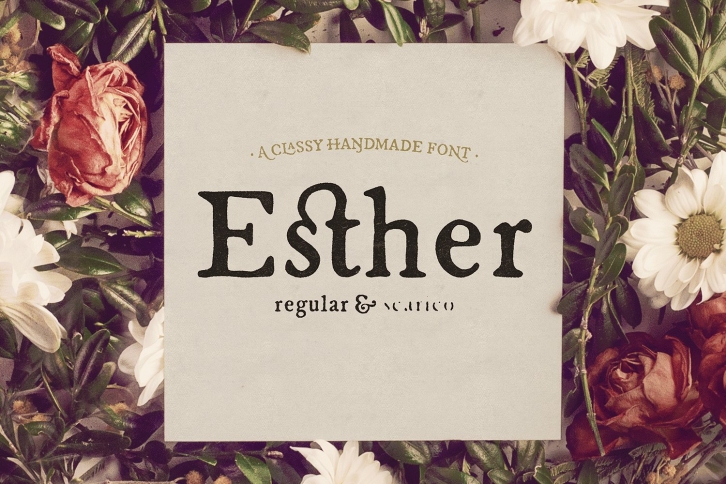
Esther is a classy handmade typeface that has been designed by Valerio Dell’Edera, who also has developed a Uppercase-Liga product line (Zenzero Grotesk And Zenzero Grotesk Sans). This font is the ultimate version of this serie, with serifs. It is not constructed out of modules: each character is drawn by hand and optimized for the best legibility. Esther is ideal for cookbooks, menus, liquor bottle labels, food packaging, wedding invitations, greeting cards, tea boxes, food blogs, small shops, cupcake bakeries and so on.
Esther Regular (Esther-Regular.otf) is a set of upper & lowercase serif characters which includes a large range of punctuation glyphs, numerals, and multilingual support. A full set of stylistic alternates for lowercase characters are also available.
Esther Exhaust (Esther-Exhaust.otf) is the dry ink version of the regular one.